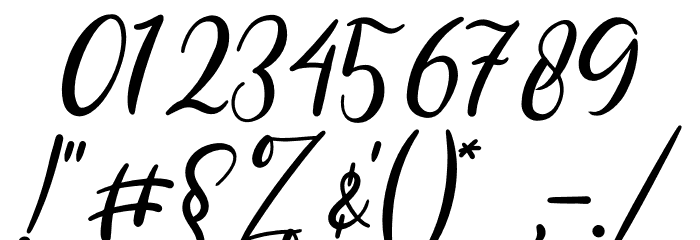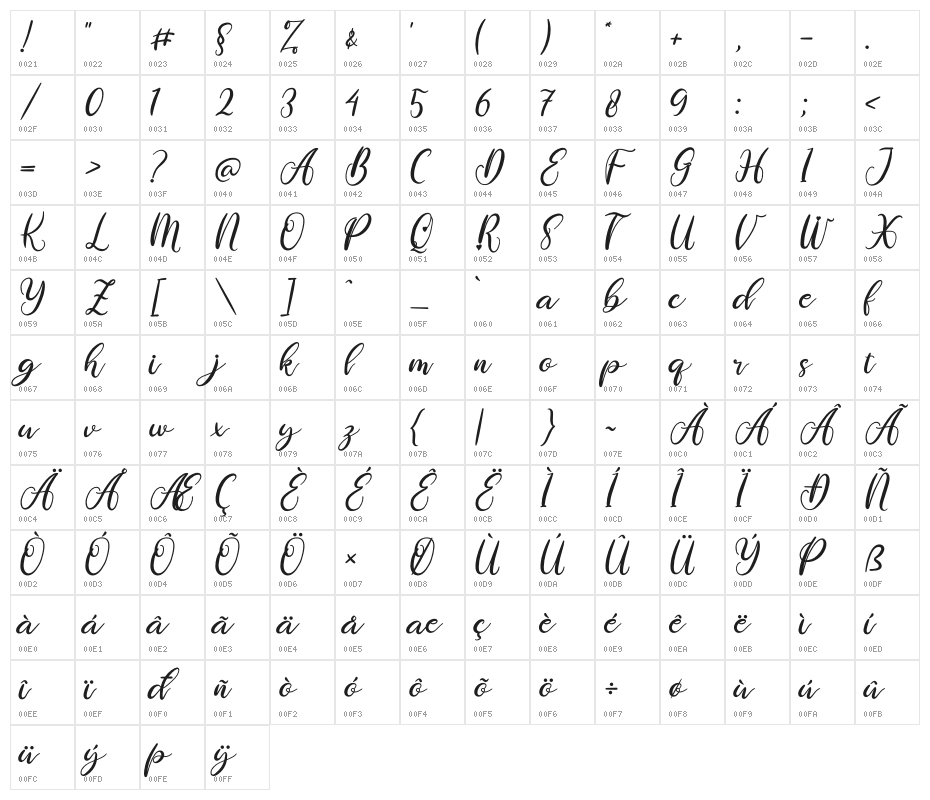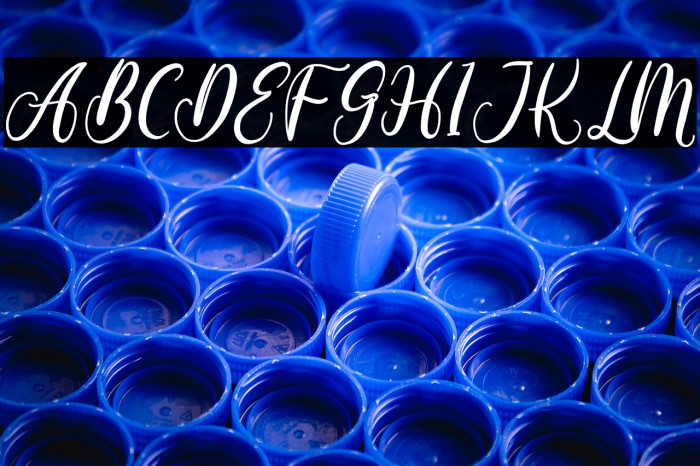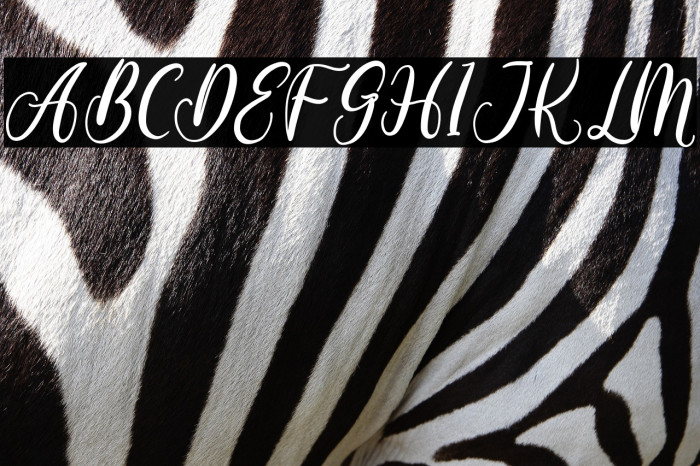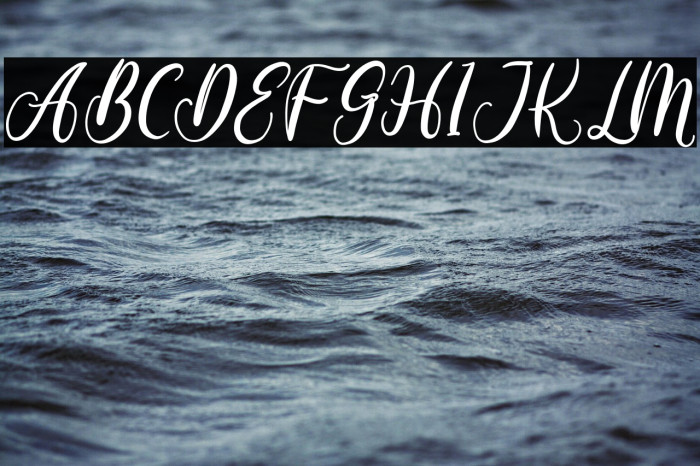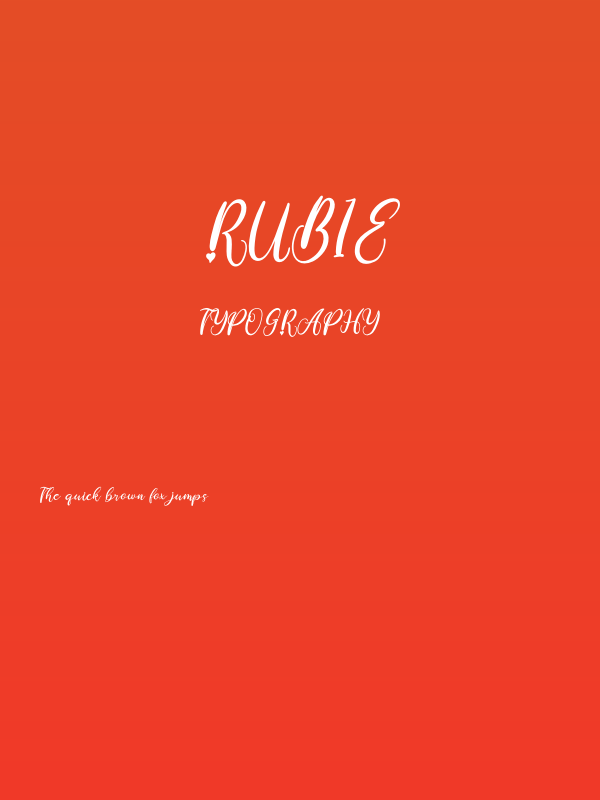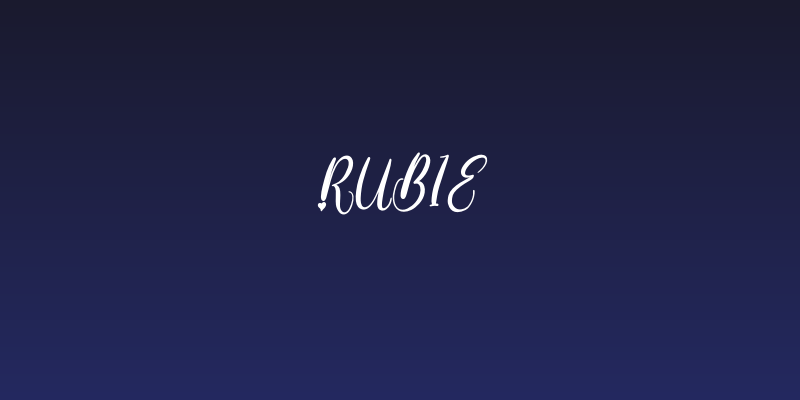
Rubie Font
Rubie Description
This font exudes a lively and elegant script style, characterized by its fluid, cursive strokes and a sense of movement. The uppercase letters are bold and sweeping, with a graceful flair that adds a touch of sophistication. The lowercase letters maintain a consistent flow, enhancing readability while retaining an artistic charm. Numbers are crafted with the same attention to detail, ensuring they blend seamlessly with the alphabet. Special characters are thoughtfully designed, complementing the overall aesthetic. The font's dynamic nature makes it suitable for creative and expressive projects.
| Use Case | Logos, Invitations, Decorative Text |